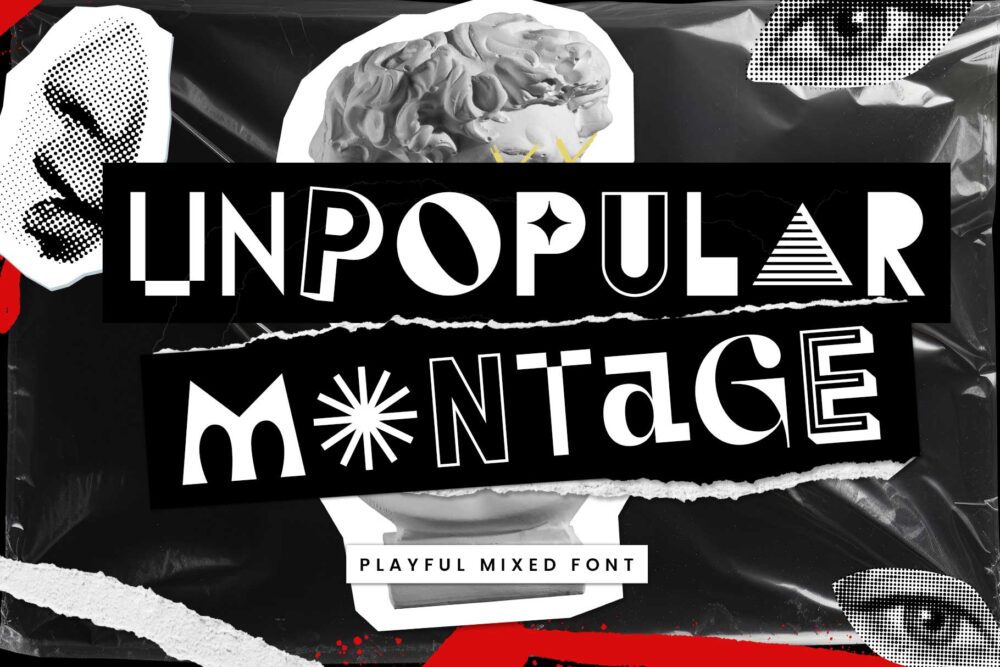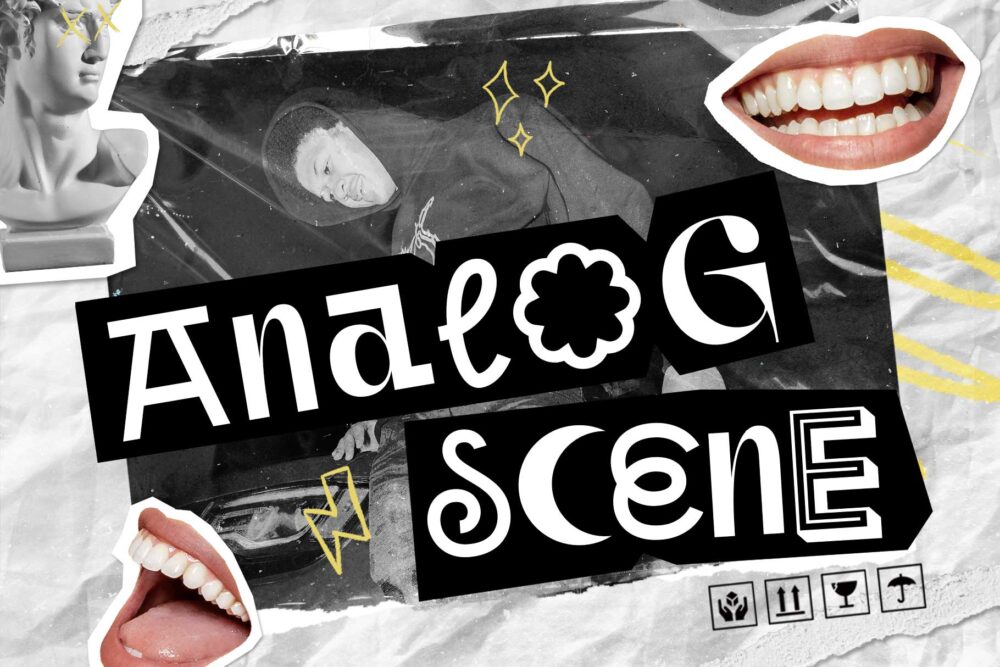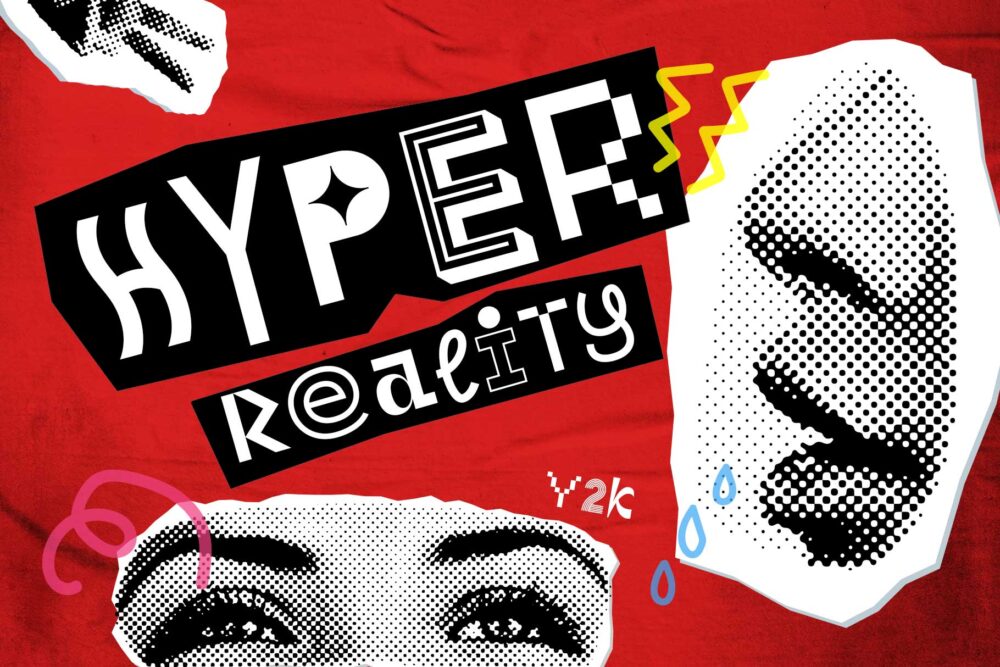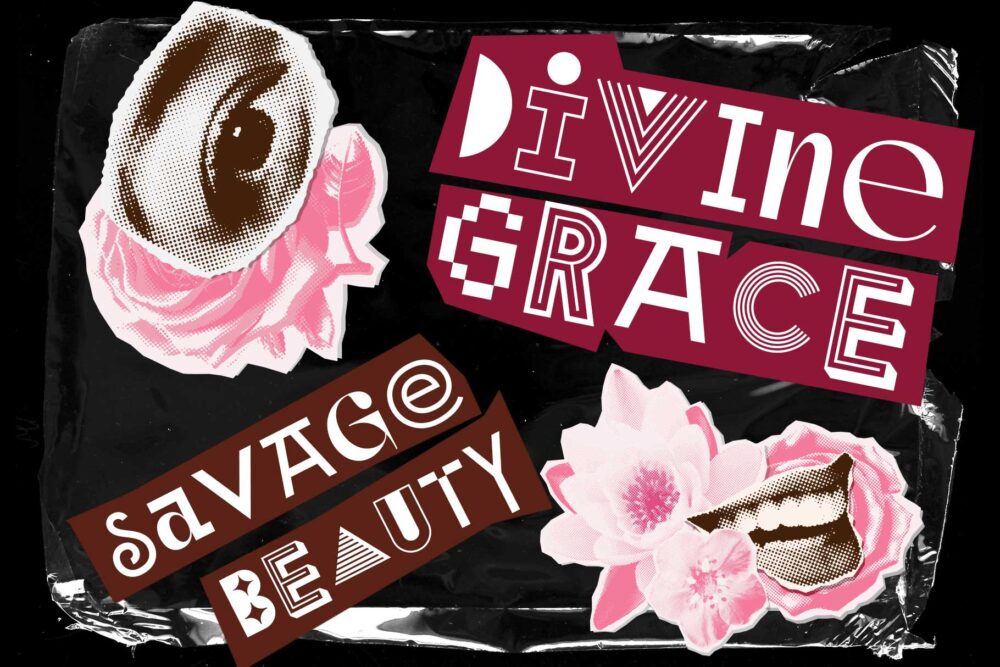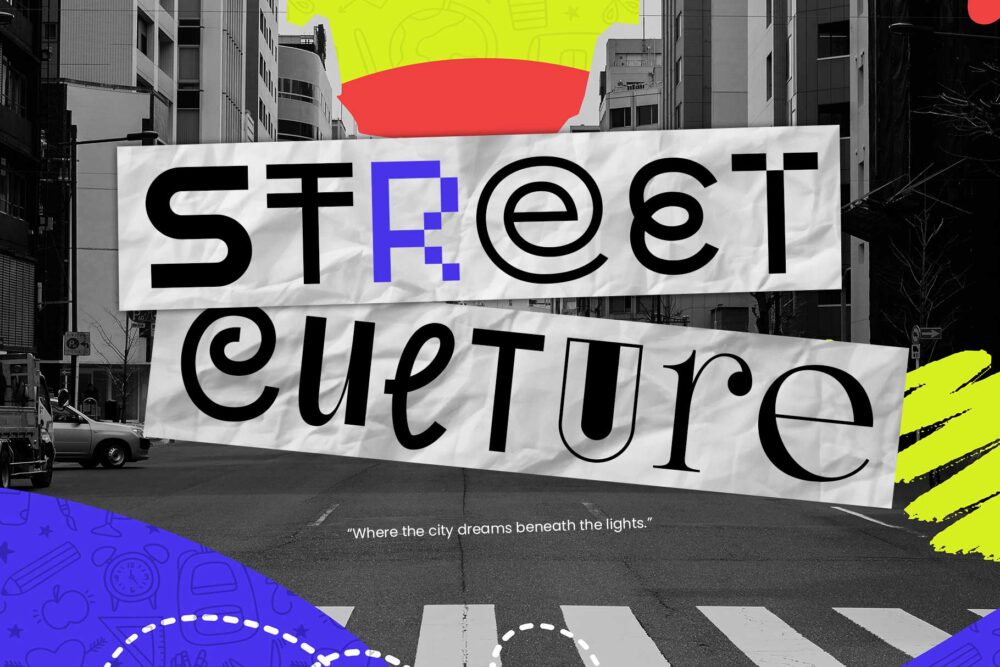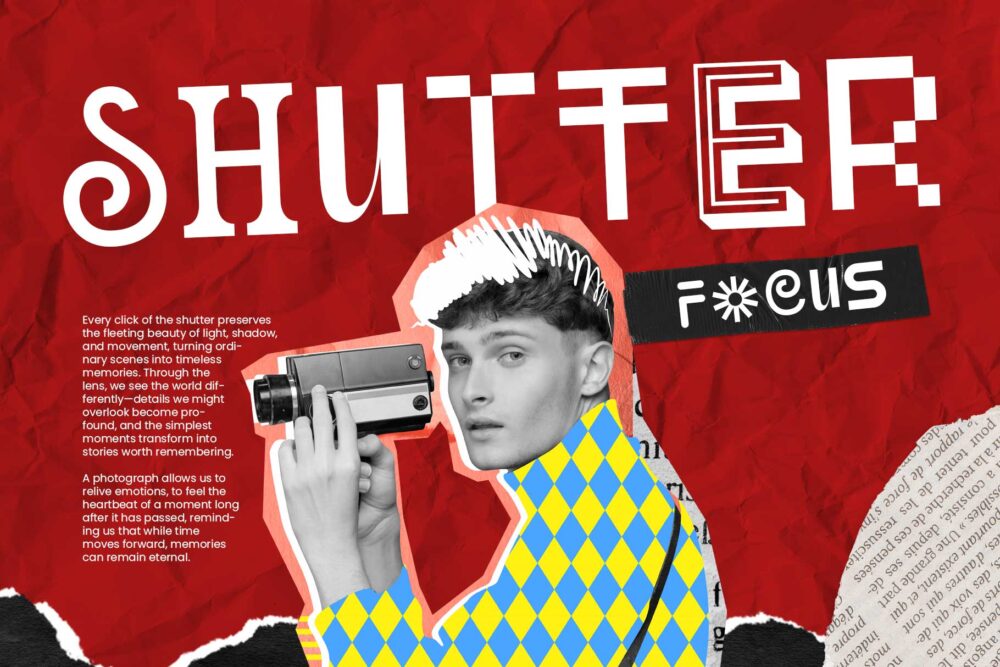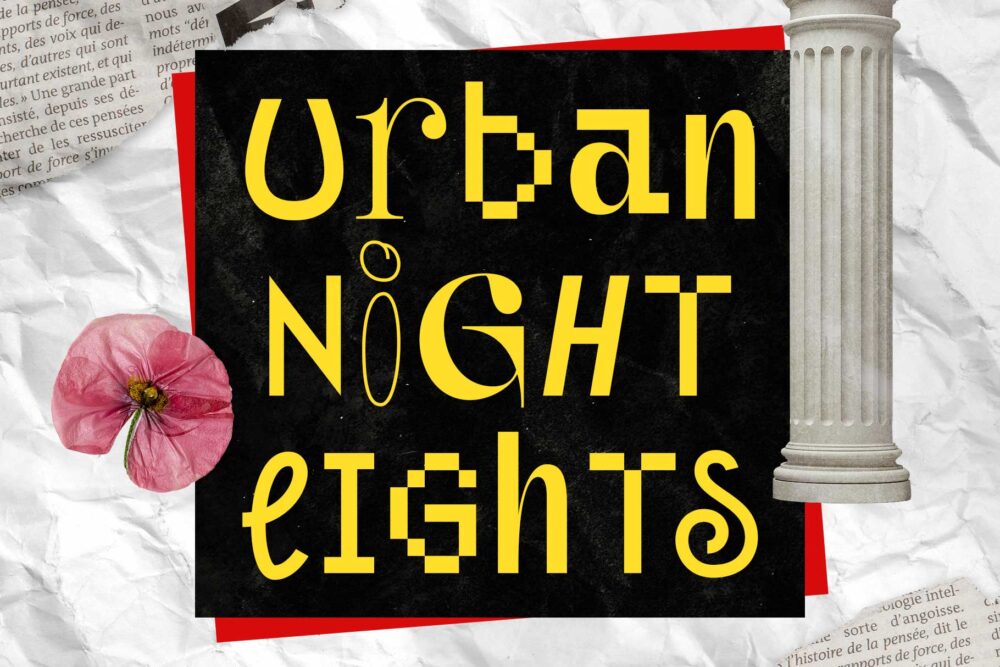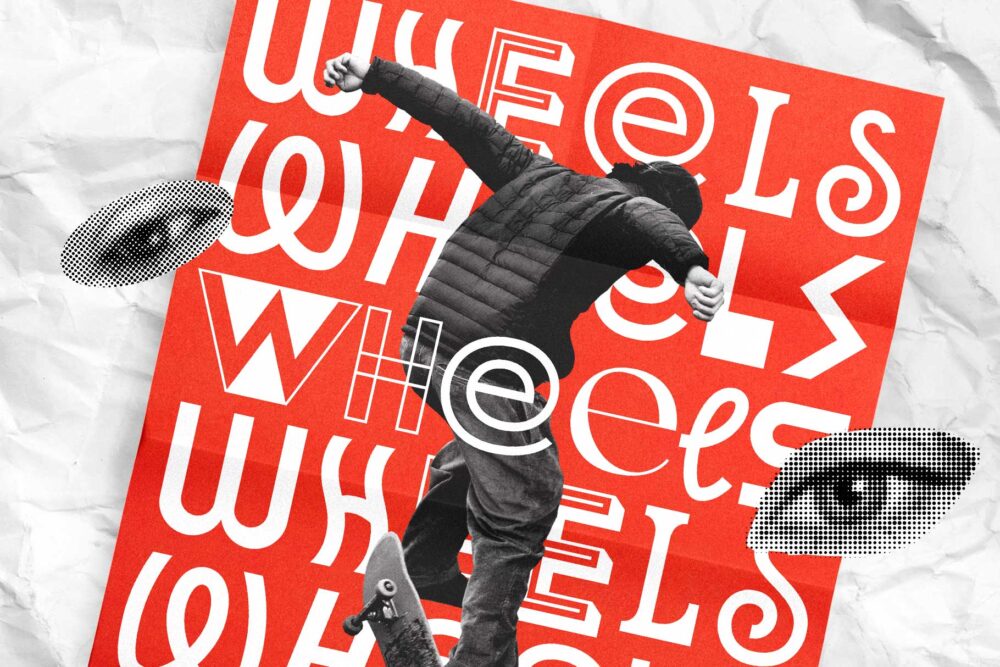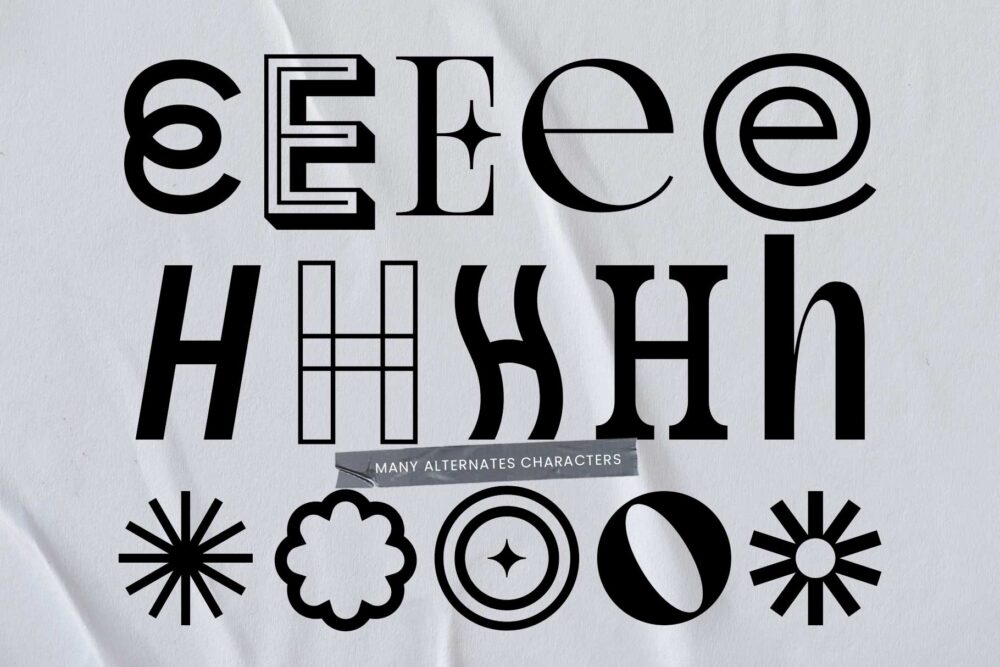
Unpopular Montage mixed font — modern collage-style typography
Unpopular Montage
Introducing “Unpopular Montage” — a rebellious mixed font born from modern collage art and retro experimentation.
A bold blend of shapes and moods — sans meets serif, geometric meets organic, creating a vibrant typographic fusion that feels both nostalgic and new. Every letter acts like a cut from different worlds, pieced together in perfect disharmony, a visual rebellion against uniformity.
There are many alternate characters you can freely mix and match to build your own rhythm and expression — giving endless possibilities for creative compositions.
Perfect for posters, magazines, and creative branding that celebrate freedom, contrast, and fearless composition — just like a modern collage in motion.
Experimental Mixed Font – Unpopular Montage